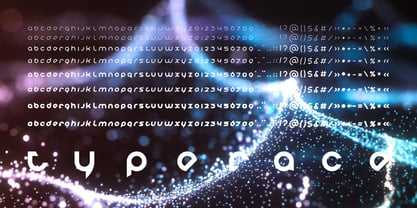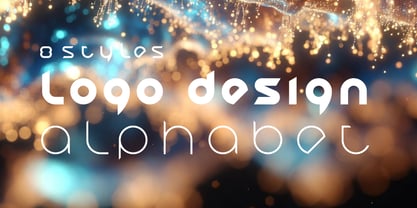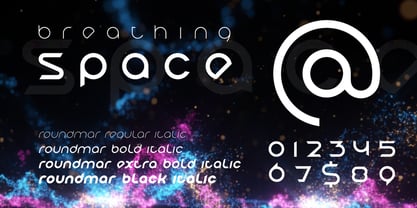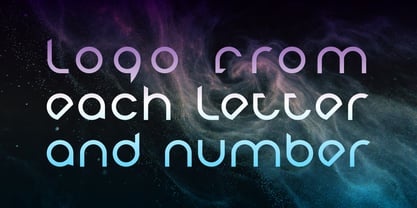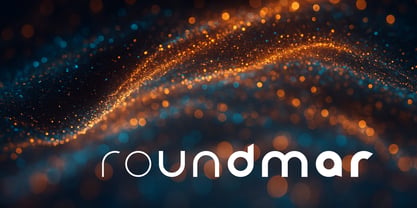
Roundmar 01
by Marooshka Type
The Roundmar 01 Font Family was designed by Maryna Fomina and published by Marooshka Type. Roundmar 01 contains 8 styles and family package options. More about this family
Discover this versatile font, designed primarily for creating logos and suitable for branding applications. It blends classic and contemporary elements for balanced letterforms, ensuring readability and impact. Its uniqueness is in optimized proportions and stroke variations, providing flexibility for logo design without losing clarity. The modular structure allows easy character adjustments for custom shapes. Functionally, it includes styles: regular, regular italic, bold, bold italic, extra bold, extra bold italic, black, black italic. It's ideal for brandbooks and corporate rebranding. Use it in identity systems, print collateral, digital interfaces, environmental graphics, or merchandise. This font prioritizes precision for memorable visual identities, serving as an efficient tool for designers. Functionally, the font includes multiple styles: regular, regular italic, bold, bold italic, extra bold, extra bold italic, black, black italic.
Designers: Maryna Fomina
Foundry: Marooshka Type